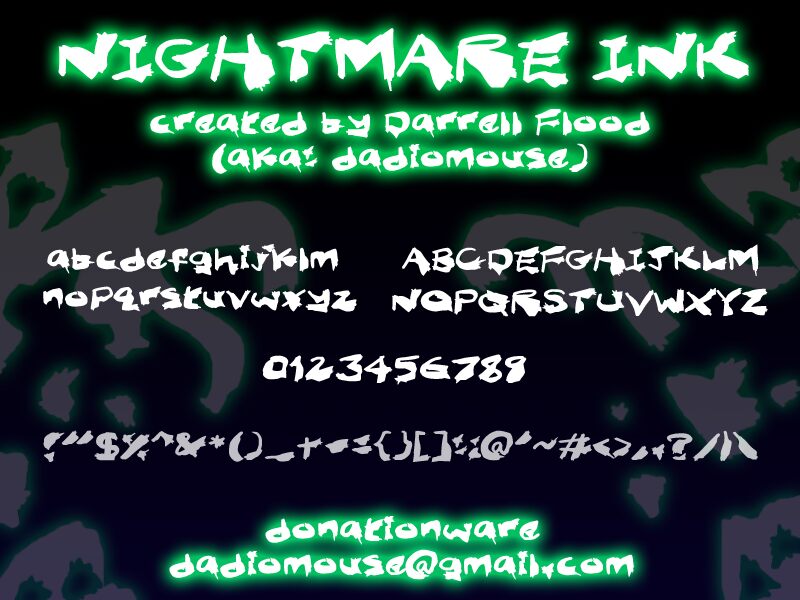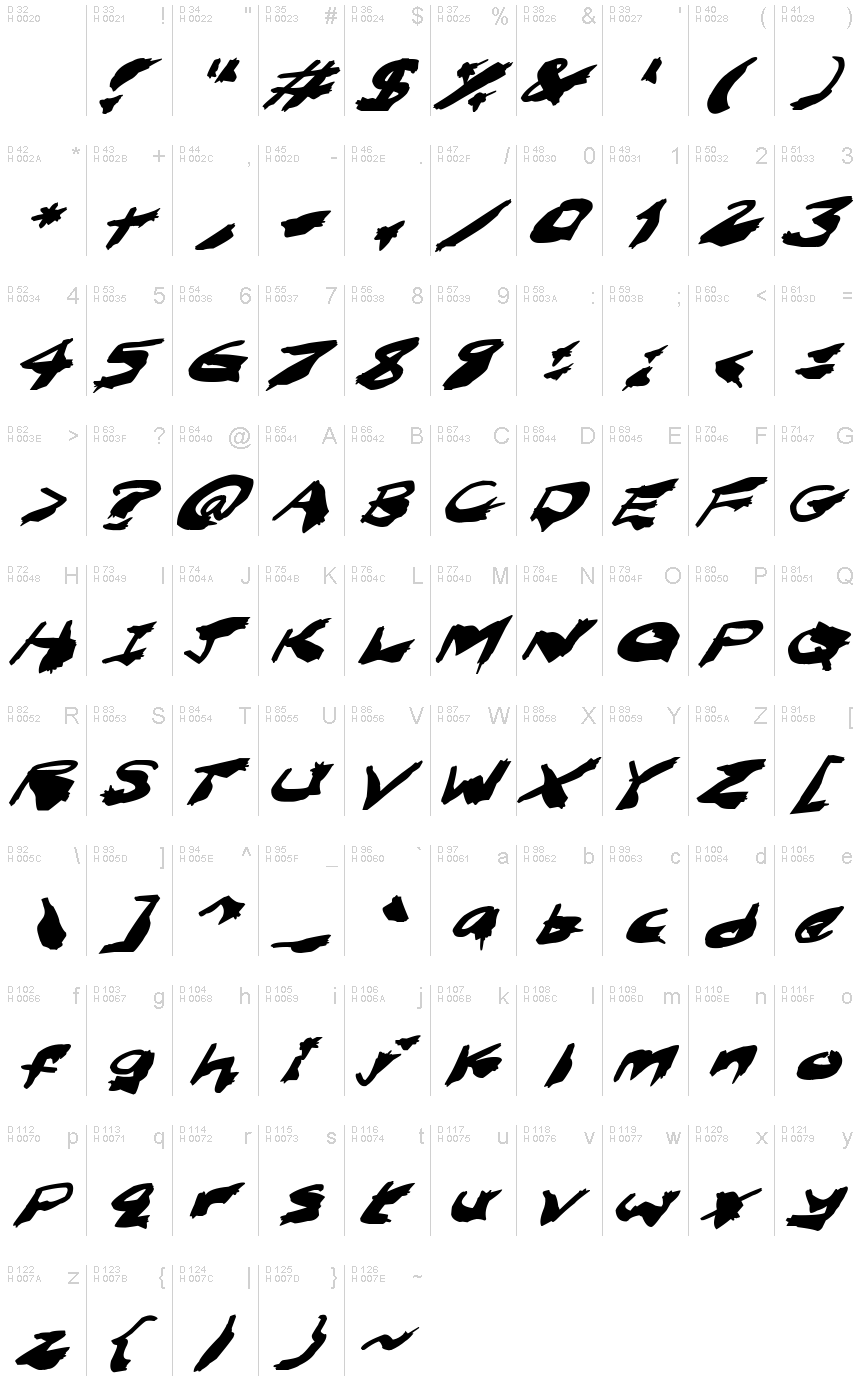
Nightmare Ink Italic
"Nightmare Ink Italic" is a bold, expanded display font that evokes a sense of haunting allure. Its sharp, angular letterforms and dynamic brushstrokes convey an ominous, yet captivating aesthetic. The font's distressed texture and unsettling style make it an ideal choice for horror-themed branding, editorial layouts, and promotional materials. Its versatility also lends itself well to eye-catching poster designs, album covers, and atmospheric game interfaces.
The font's distinctive character and moody undertones create a compelling visual impact, making it a standout choice for designers seeking to craft bold, immersive experiences.